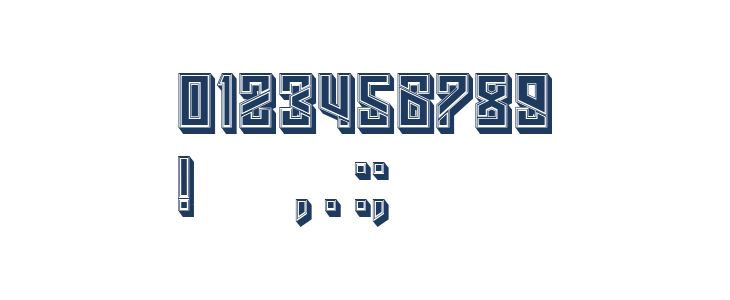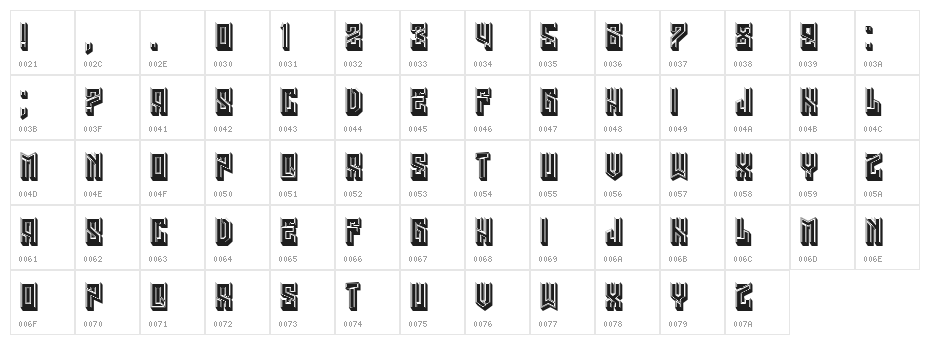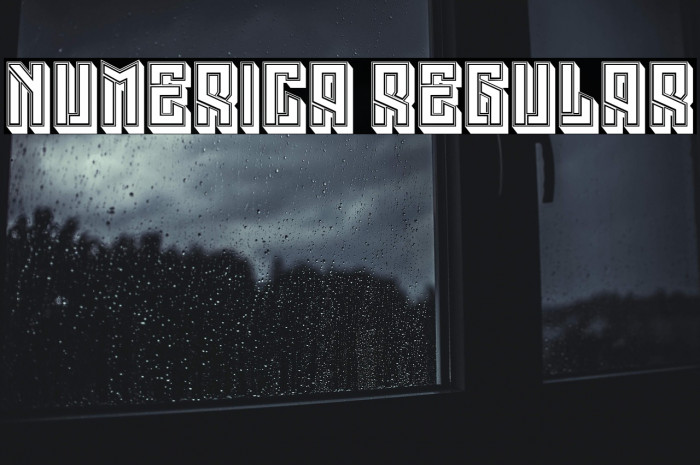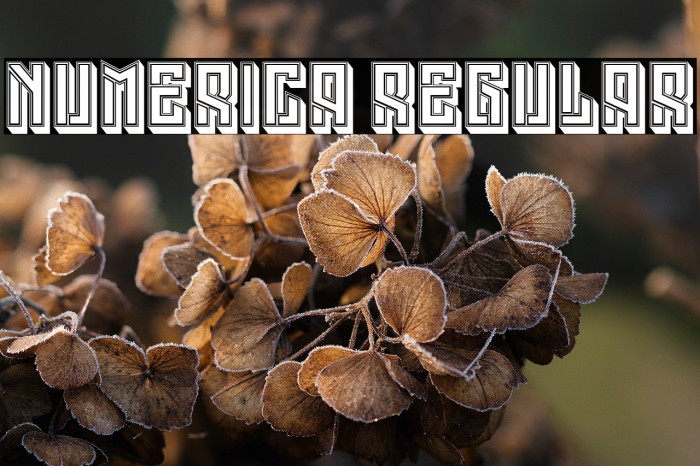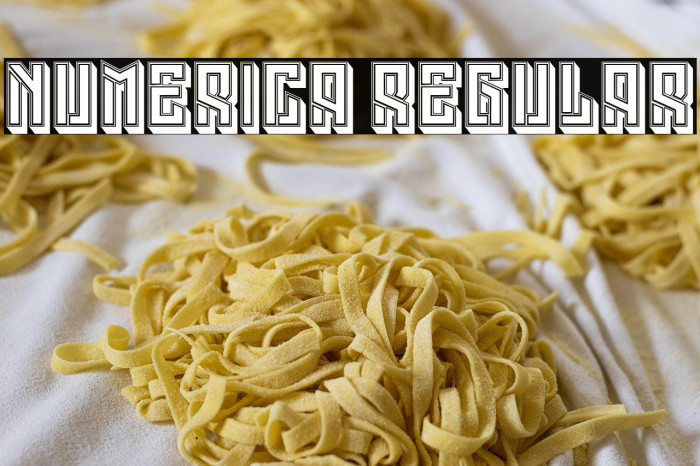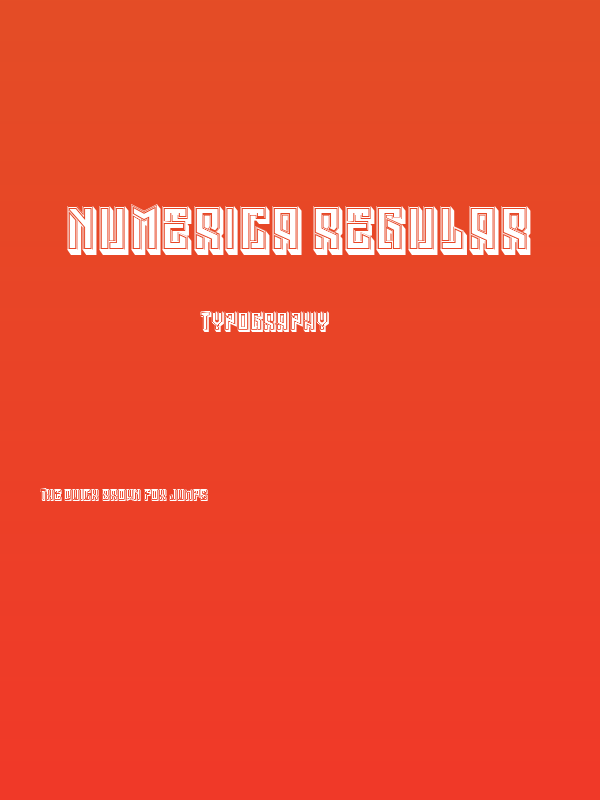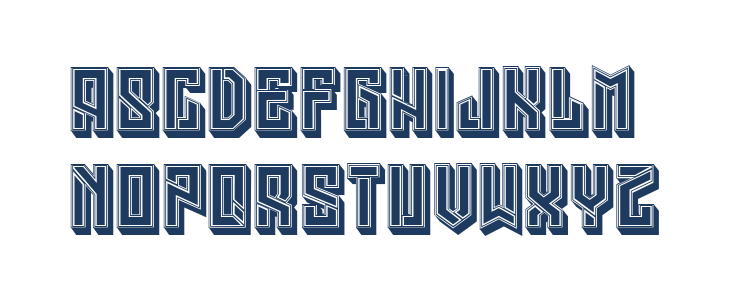
Numerica Regular Font
Numerica Regular Description
This font features a bold, geometric design with a three-dimensional effect. The characters are constructed with thick lines and sharp angles, creating a sense of depth and solidity. The uppercase letters are particularly striking, with a blocky, architectural appearance that suggests strength and stability. The numbers and special characters maintain this robust style, ensuring consistency across all glyphs. The font's design is reminiscent of digital or futuristic themes, making it suitable for projects that require a modern and impactful look.